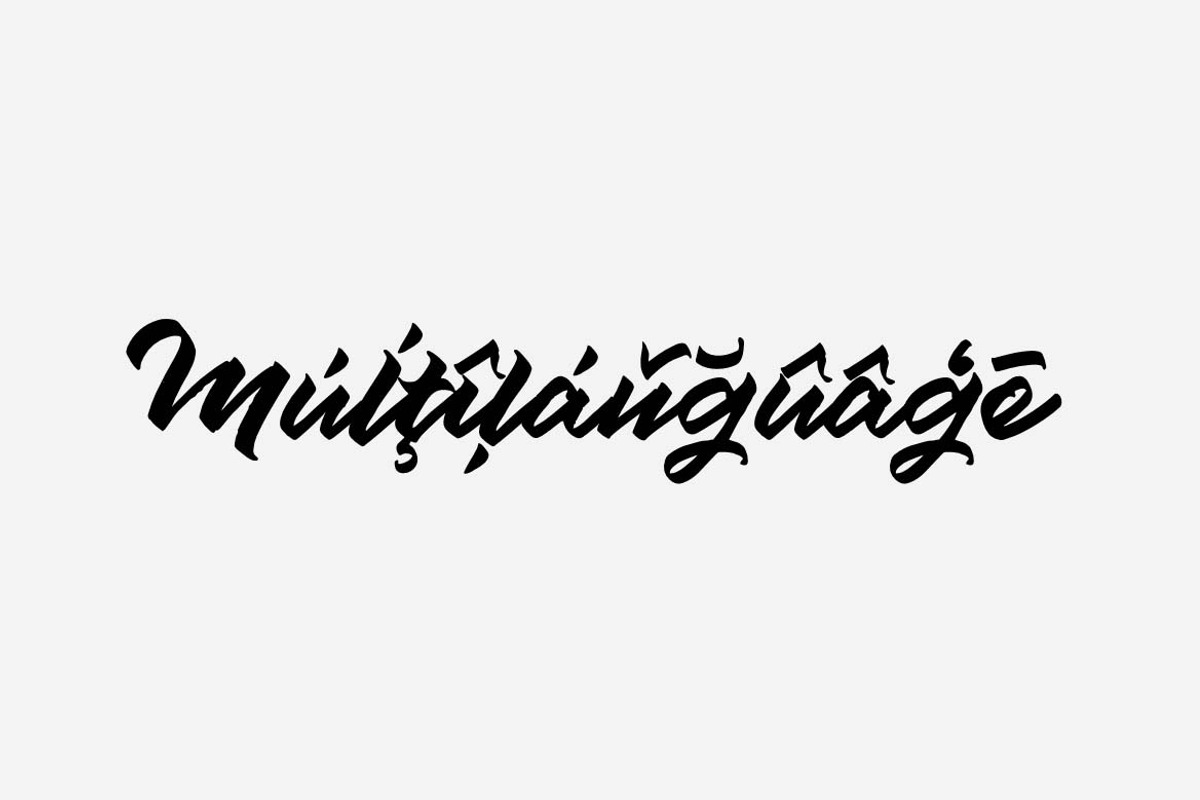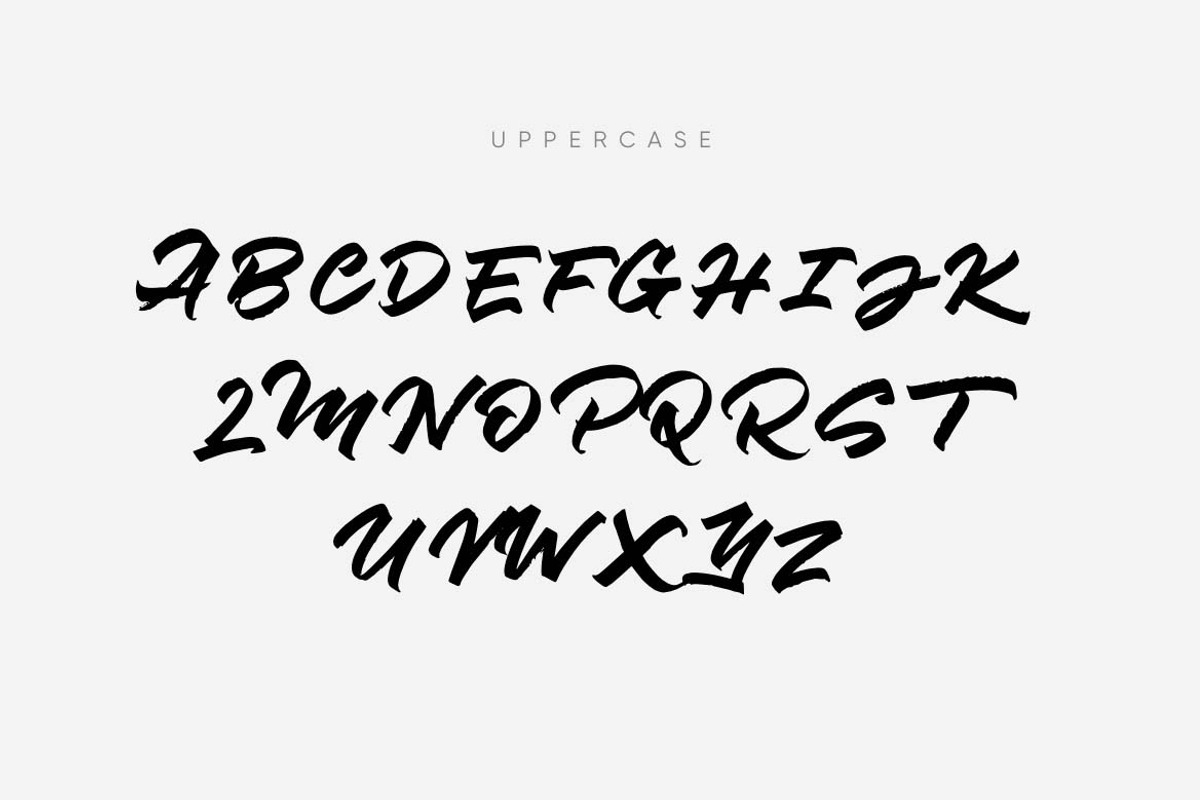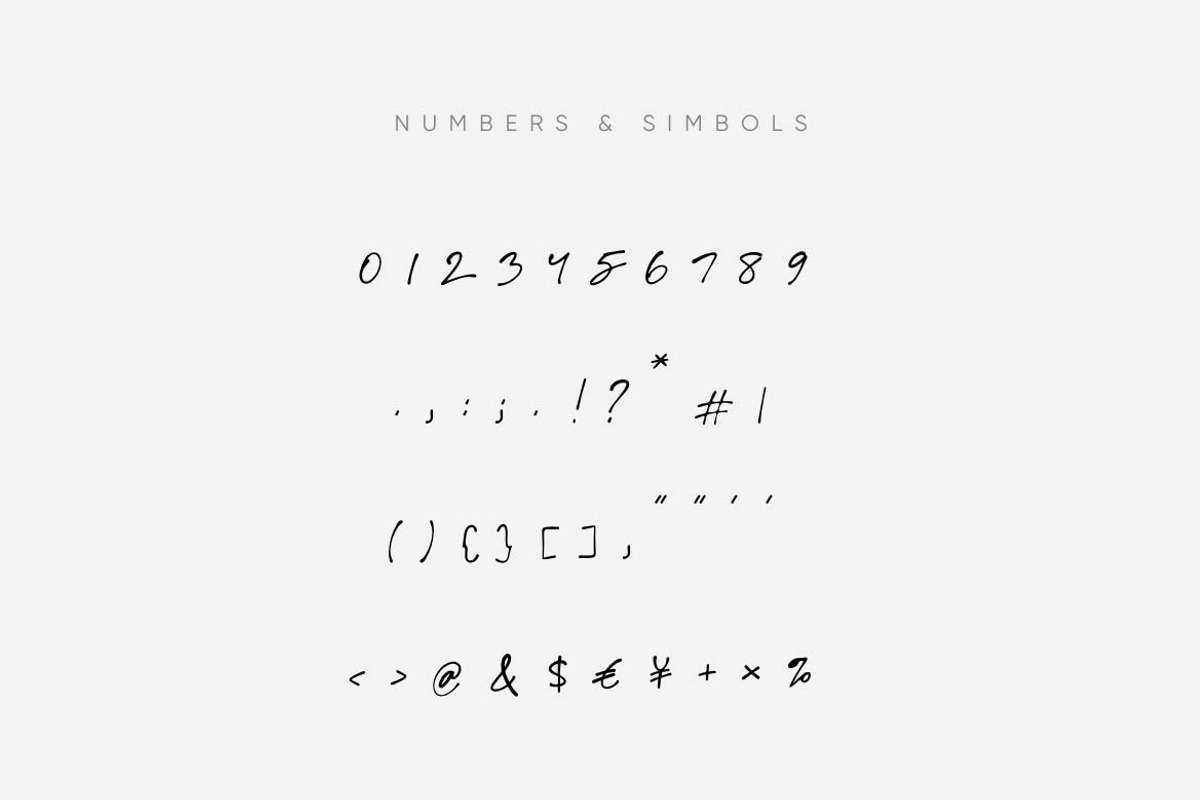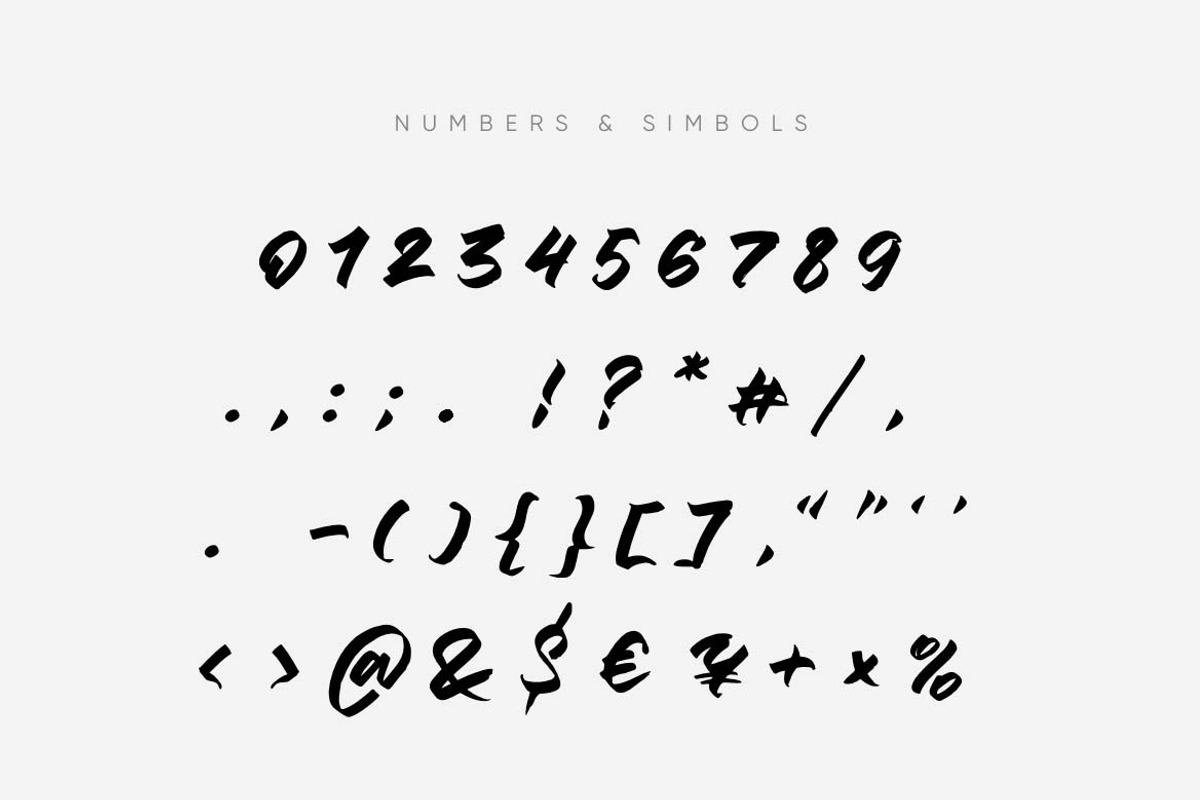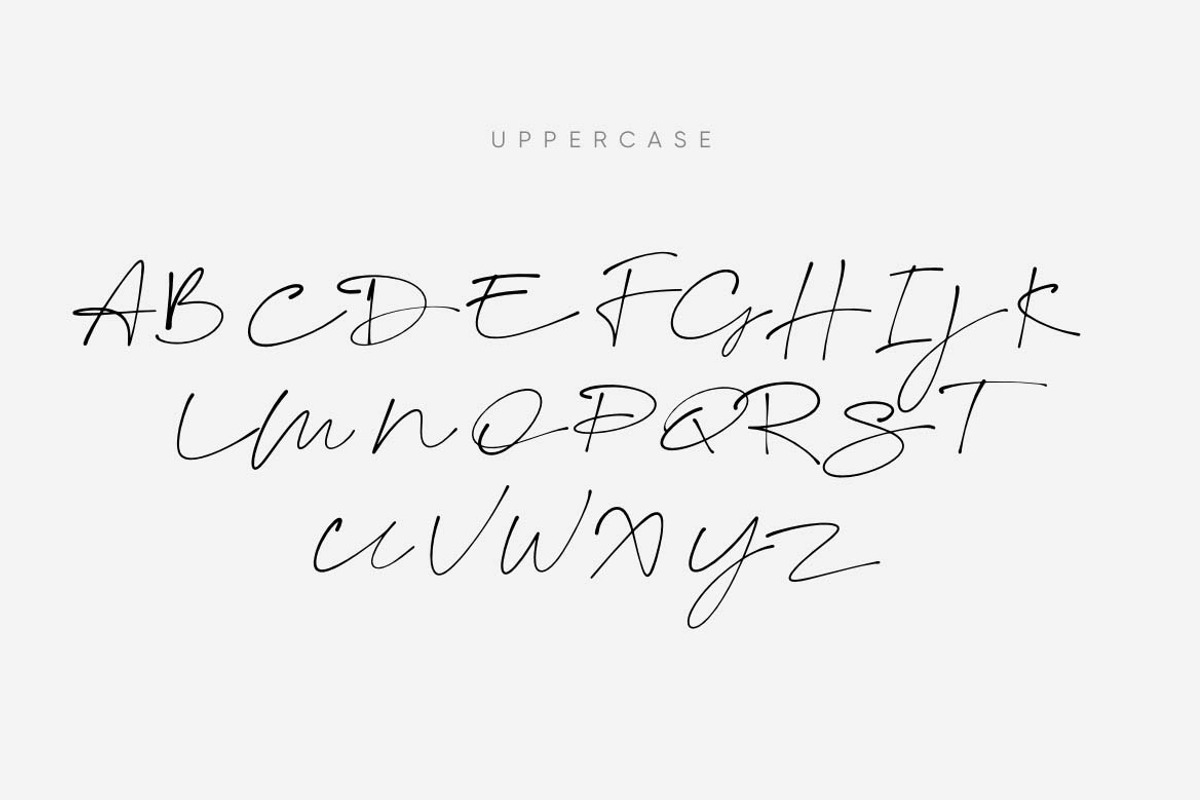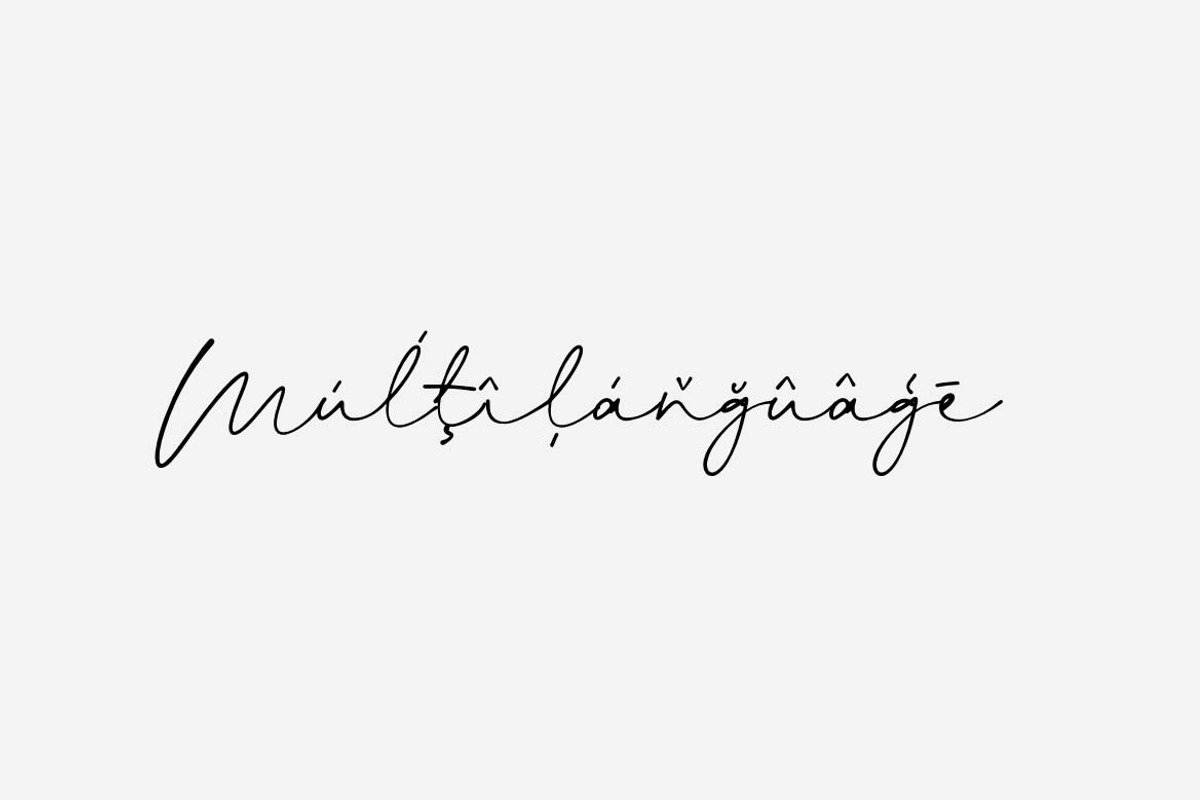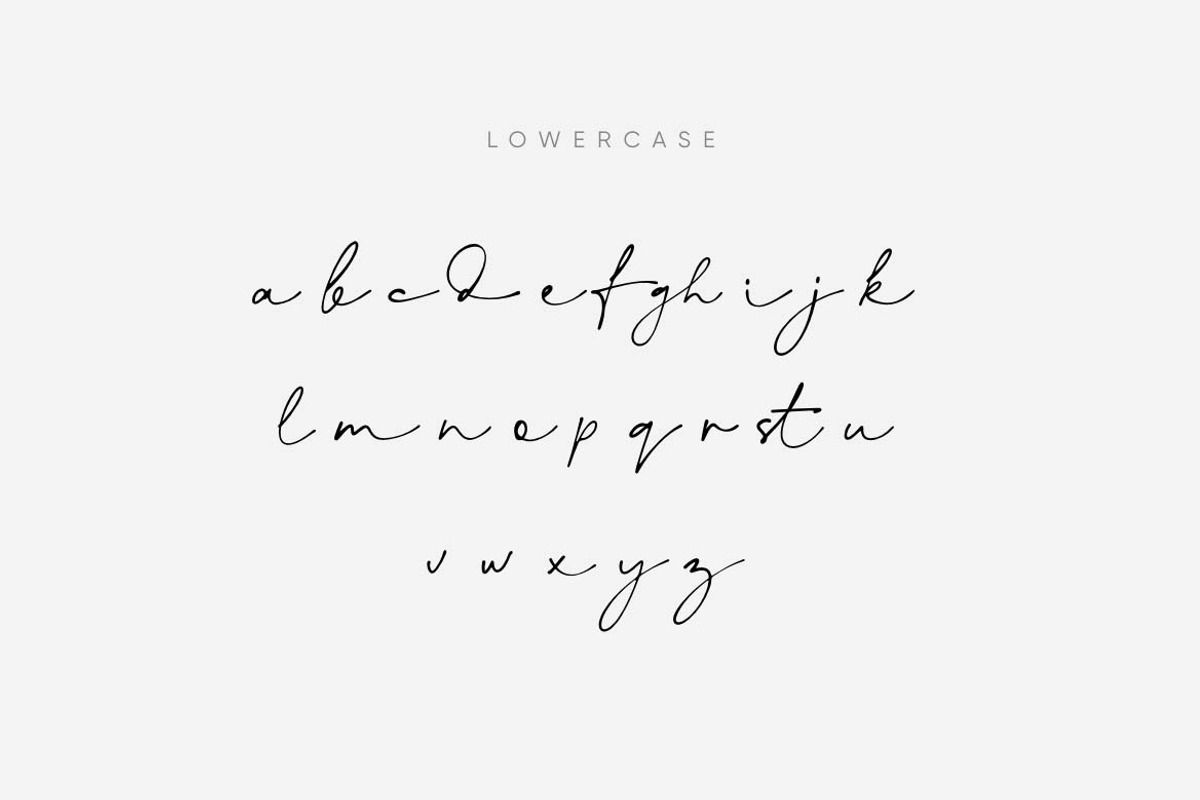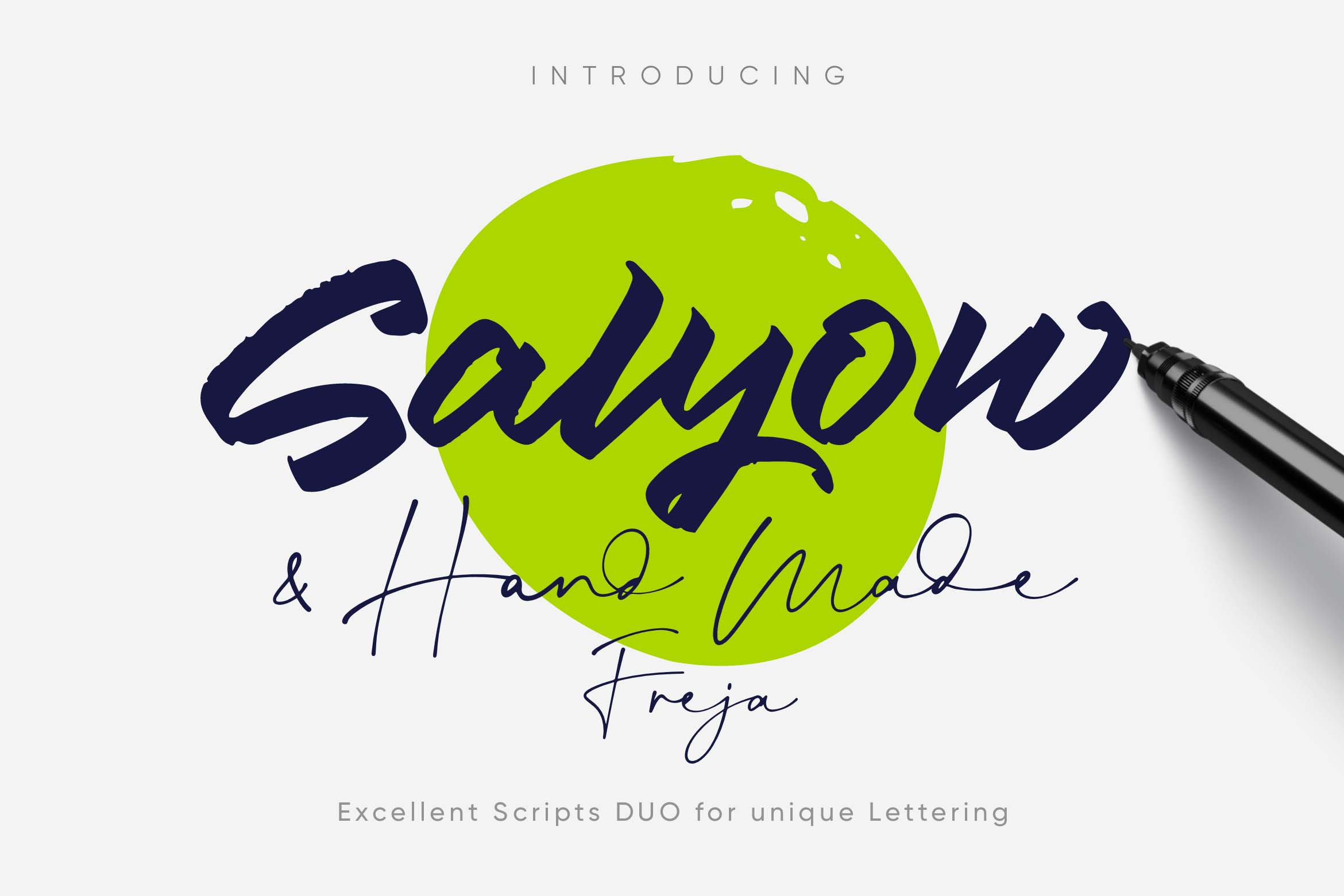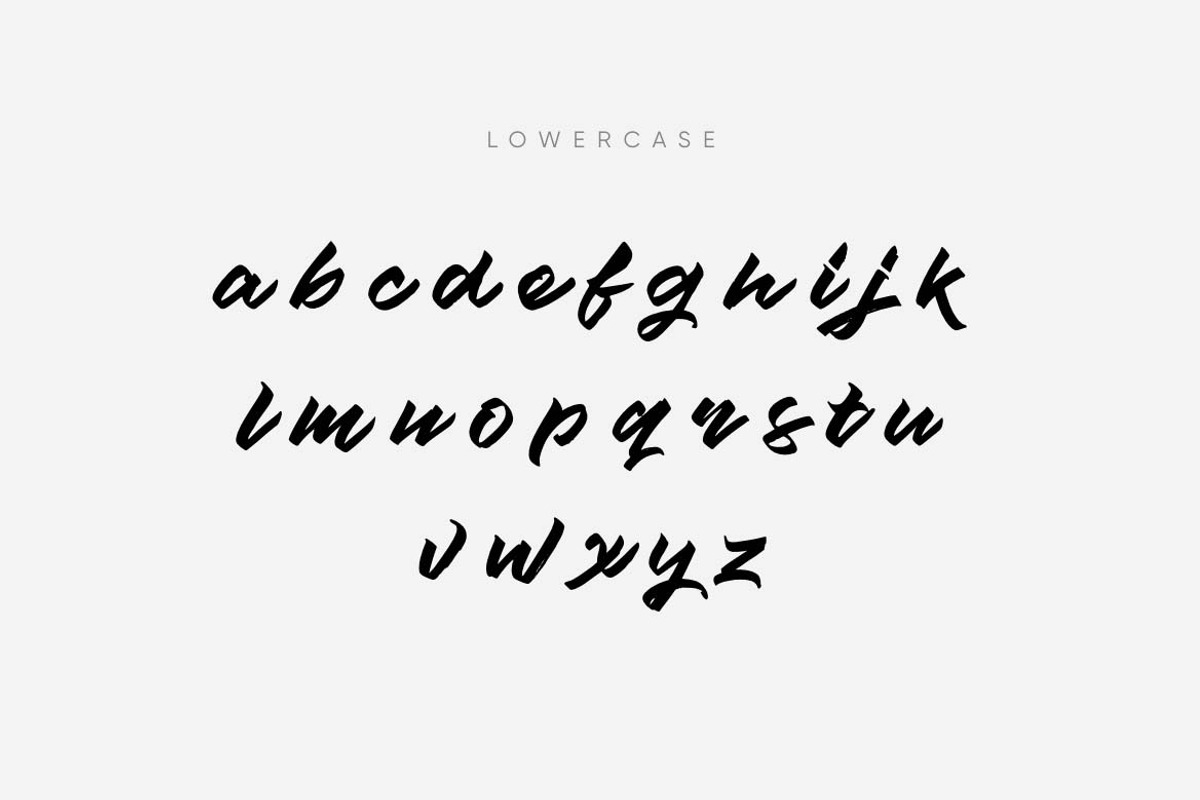
Script Fonts Duo
Introducing Script fonts Duo! A handwritten fonts with a personal charm. With quick dry strokes and a signature style, Deviant is perfect for branding projects, homeware designs, product packaging - or simply as a stylish text overlay to any background image.